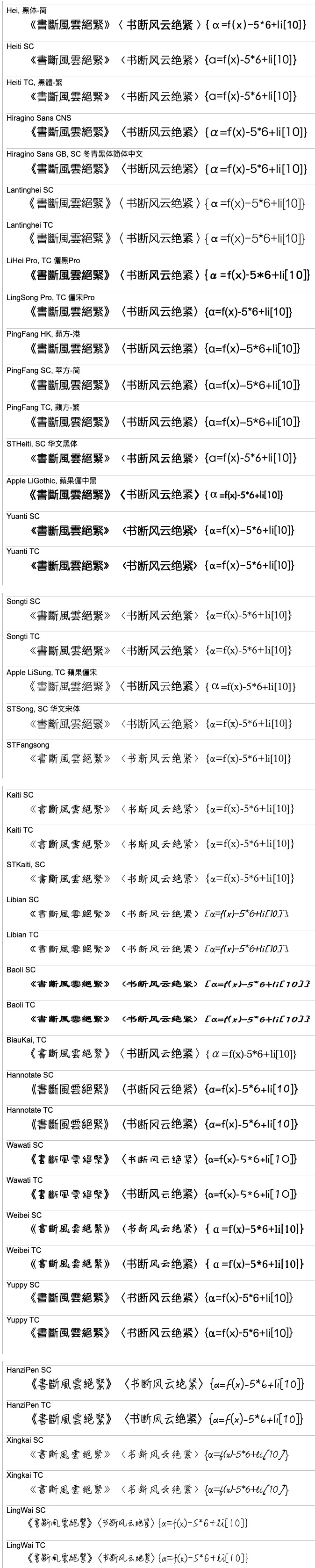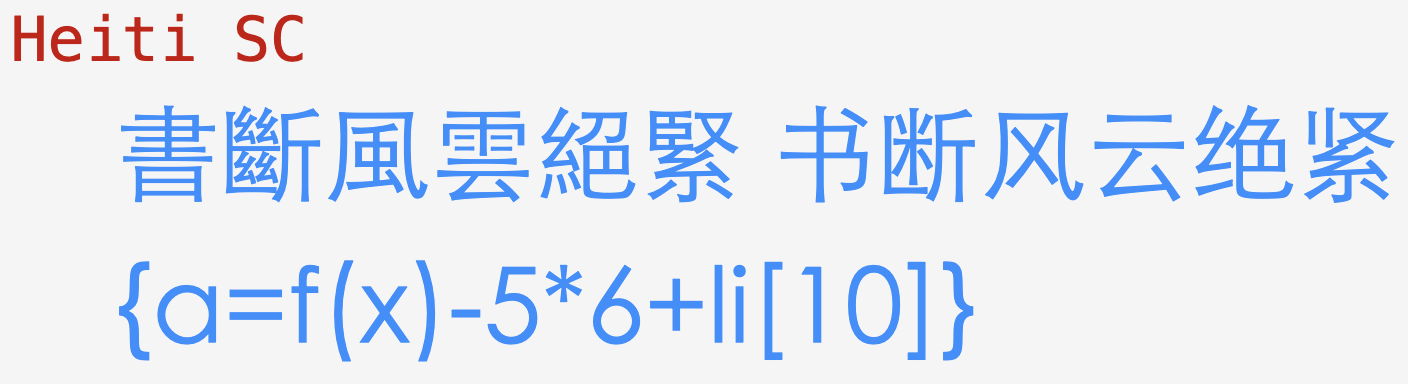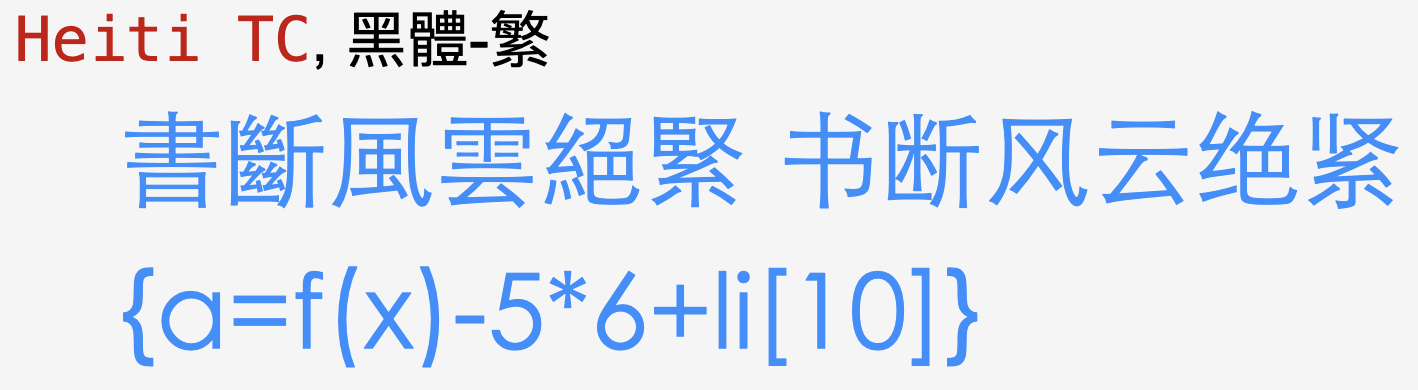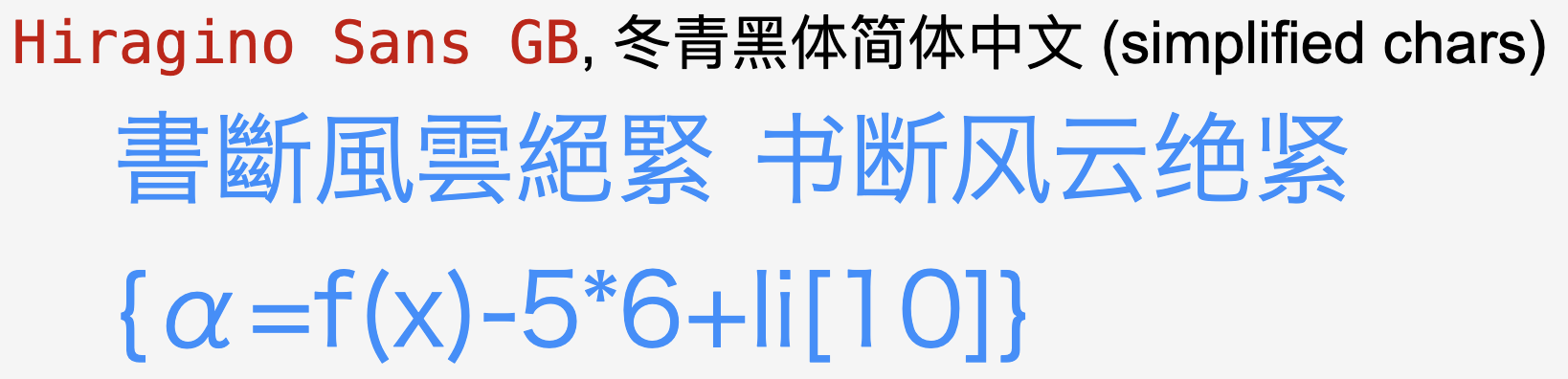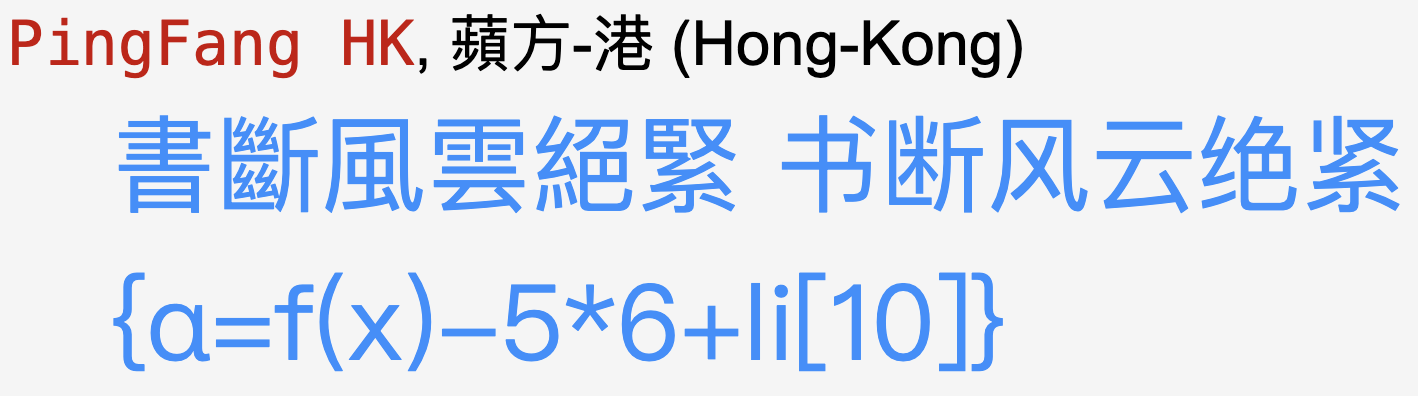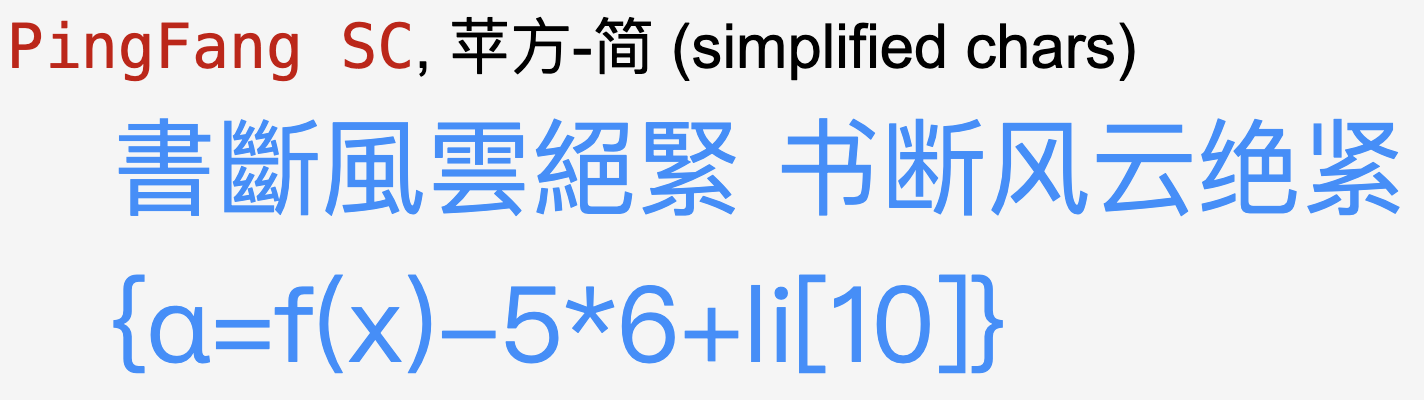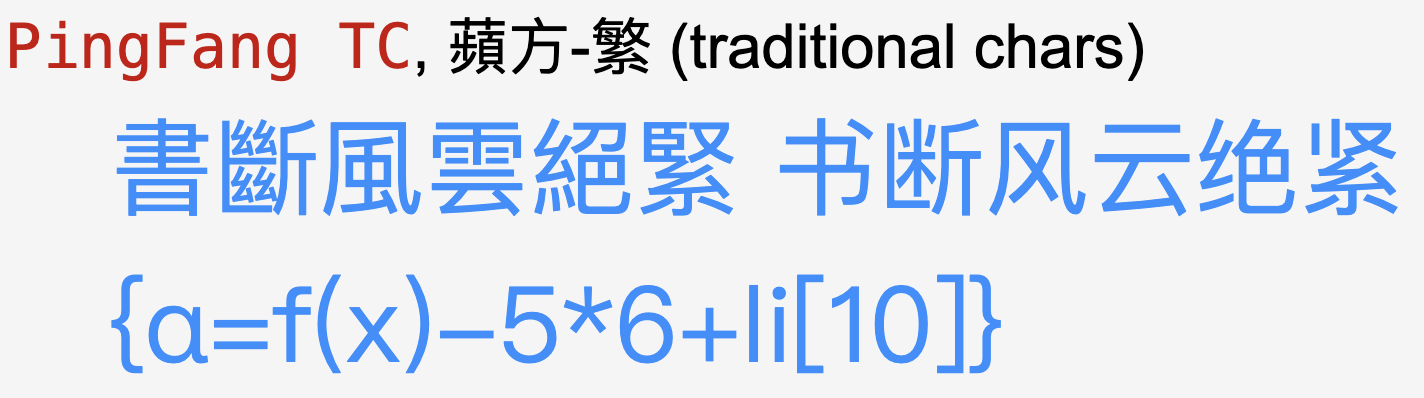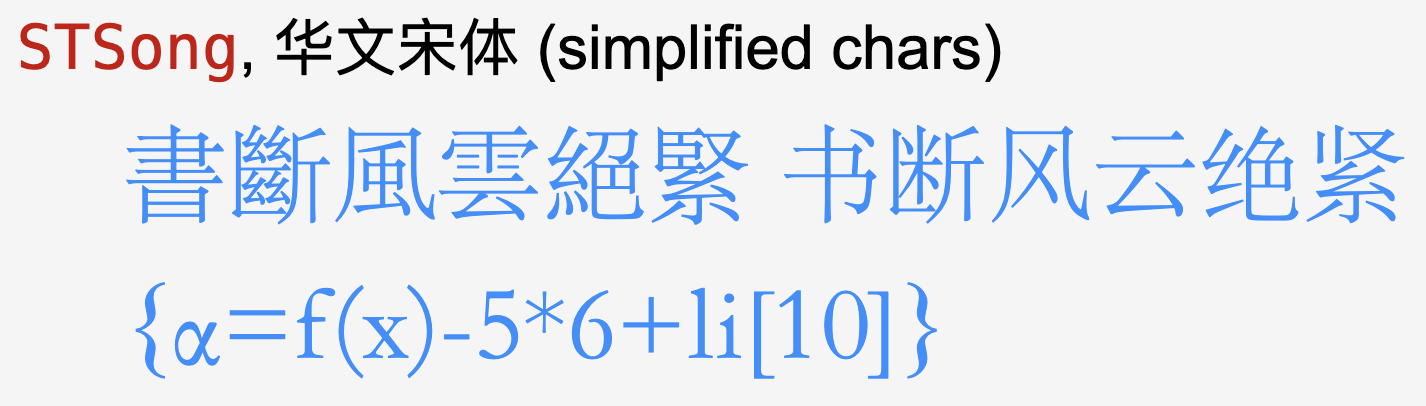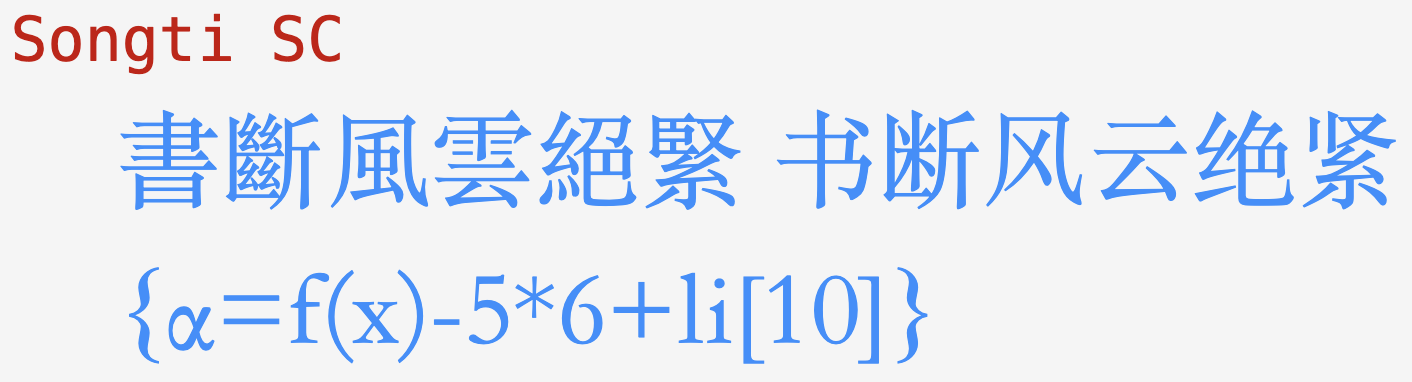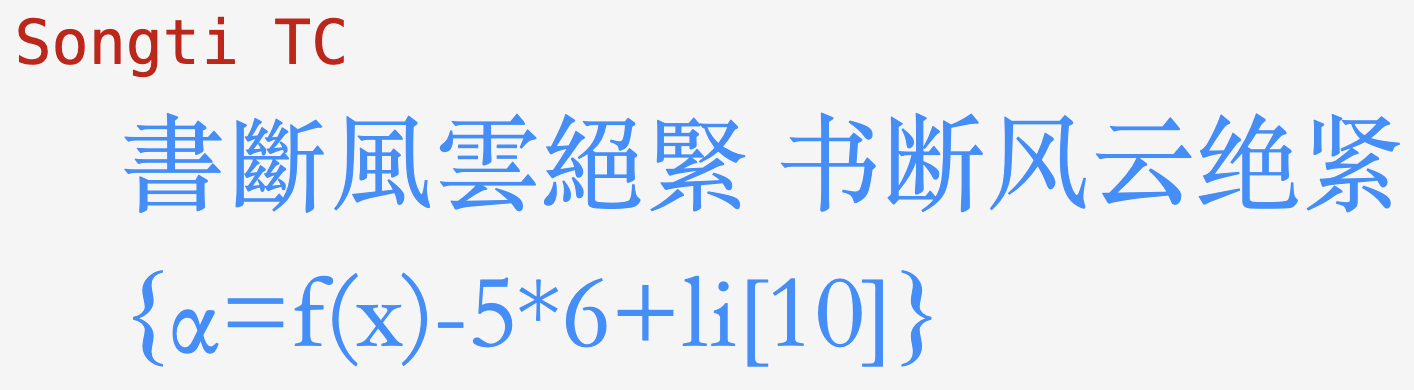
Chinese fonts on Mac
on MacOS, as of 2026-03-29.
Note:
font name containing SC is meant for simplied characters.
Font name containing TC is meant for traditional characters.
However, today they all contain most traditional characters and simplified characters.
They all look the same for vast majority of Chinese characters.
Default sans-serif font for chinese
PingFang SC, 苹方-简 (simplified chars)-
chinese font PingFang SC 2026-03 15.35 PingFang TC, 蘋方-繁 (traditional chars)-
chinese font PingFang TC 2026-03 15.52 PingFang HK, 蘋方-港 (Hong-Kong)-
chinese font PingFang HK 2026-03 16.21
Default serif font for chinese
Songti SC-
chinese font Songti SC 2026-03 16.51 Songti TC-
chinese font Songti TC 2026-03 17.17 STSong, 华文宋体 (simplified chars)-
chinese font STSong 2026-03 18.20
Other fonts
Heiti SC-
chinese font Heiti SC 2026-03 19.24 Heiti TC, 黑體-繁-
chinese font Heiti TC 2026-03 19.43 Hiragino Sans GB, 冬青黑体简体中文 (simplified chars)-
chinese font Hiragino Sans GB 2026-03 20.10
macOS chinese fonts as of 2020
Following are fonts on the Mac as of 2020-10-09.
- SC means Simplified Chinese.
- TC means Traditional Chinese.